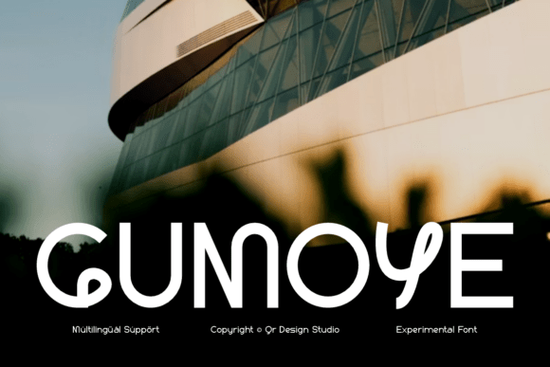
Gumoye Font is a standout choice for anyone looking to add a modern, dynamic feel to their design projects. This sans-serif typeface blends architectural elements with experimental typography, making it ideal for a variety of creative applications. Whether you're working on a logo, social media post, or exhibition signage, Gumoye brings a unique visual identity that sets your work apart.
Designed with bold, geometric shapes, Gumoye features uppercase letters that stand out due to their distinctive details. The ‘G’ has an inward-curling spiral terminal, while the ‘M’ and ‘Y’ have high-reaching asymmetrical arches. These subtle yet impactful choices give the font a sense of movement and energy, perfect for designs that need to capture attention.
The font’s clean structure makes it easy to read, even at smaller sizes. Its modernist architecture ensures it works well in both digital and print formats. With support for multiple languages, Gumoye is a versatile option for international projects or multilingual content. This makes it especially useful for designers who work with global audiences or need to maintain consistency across different regions.
Why choose Gumoye Font?
If you're looking for a font that combines creativity with functionality, Gumoye is a strong contender. It’s designed for those who want to make a statement without sacrificing readability. The font’s balance between structure and experimentation makes it suitable for a wide range of industries, from fashion to technology.
For example, independent streetwear brands often use Gumoye for logos that reflect a contemporary, edgy aesthetic. Tech studios may use it for branding that conveys innovation and forward-thinking ideas. Alternative publications and museums also find value in its ability to create visually striking headers and signage.
How to use Gumoye Font effectively
When using Gumoye, consider the context of your design. Its bold nature works best when used as a headline or accent text rather than body copy. Pairing it with simpler fonts can help maintain visual balance. For instance, combining it with a clean serif or sans-serif font can create a contrast that highlights its unique characteristics.
Try experimenting with different weights and spacing to see what works best for your project. Gumoye’s fluidity allows for creative layouts, making it a good fit for modern, minimalist designs. It also pairs well with geometric graphics or abstract patterns, enhancing the overall visual impact.
Whether you're a designer, a small business owner, or a creative hobbyist, Gumoye Font provides a powerful tool for making your work stand out. Its combination of form and function makes it a valuable addition to any design toolkit.
Remember, the goal is to create something that not only looks good but also communicates your message clearly. With Gumoye, you’re equipped with a font that does just that offering a fresh, modern look that’s both functional and expressive.